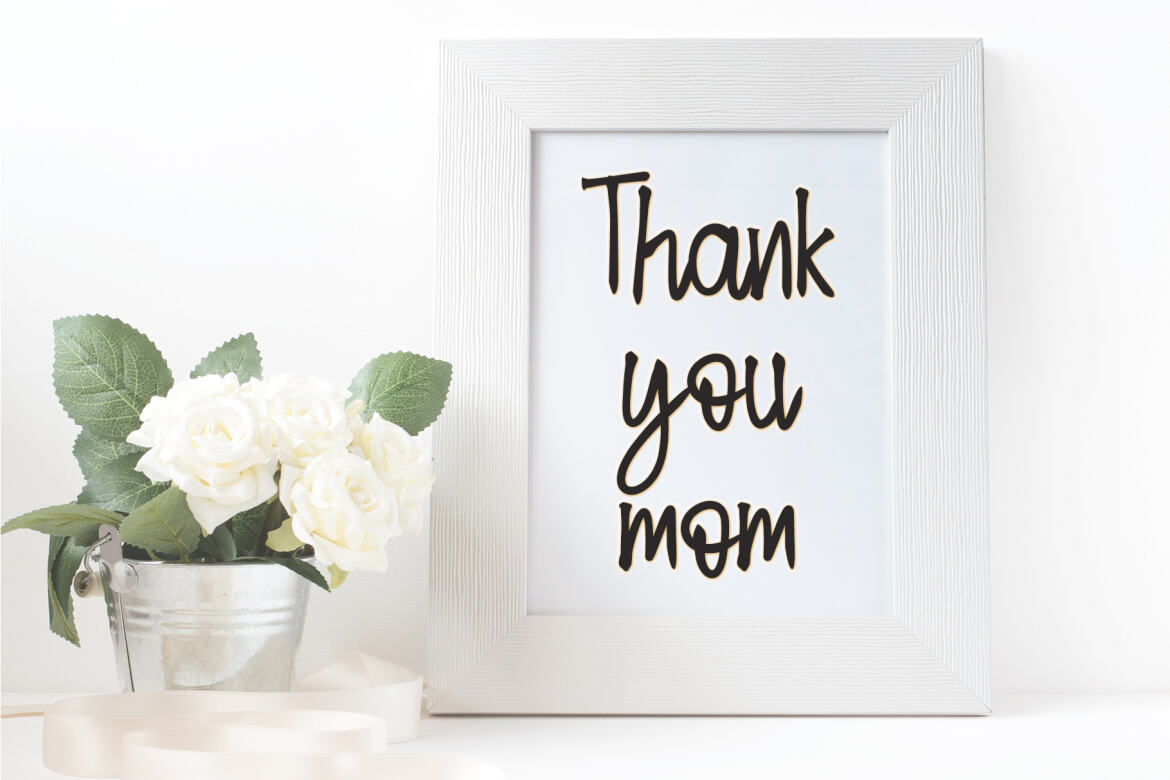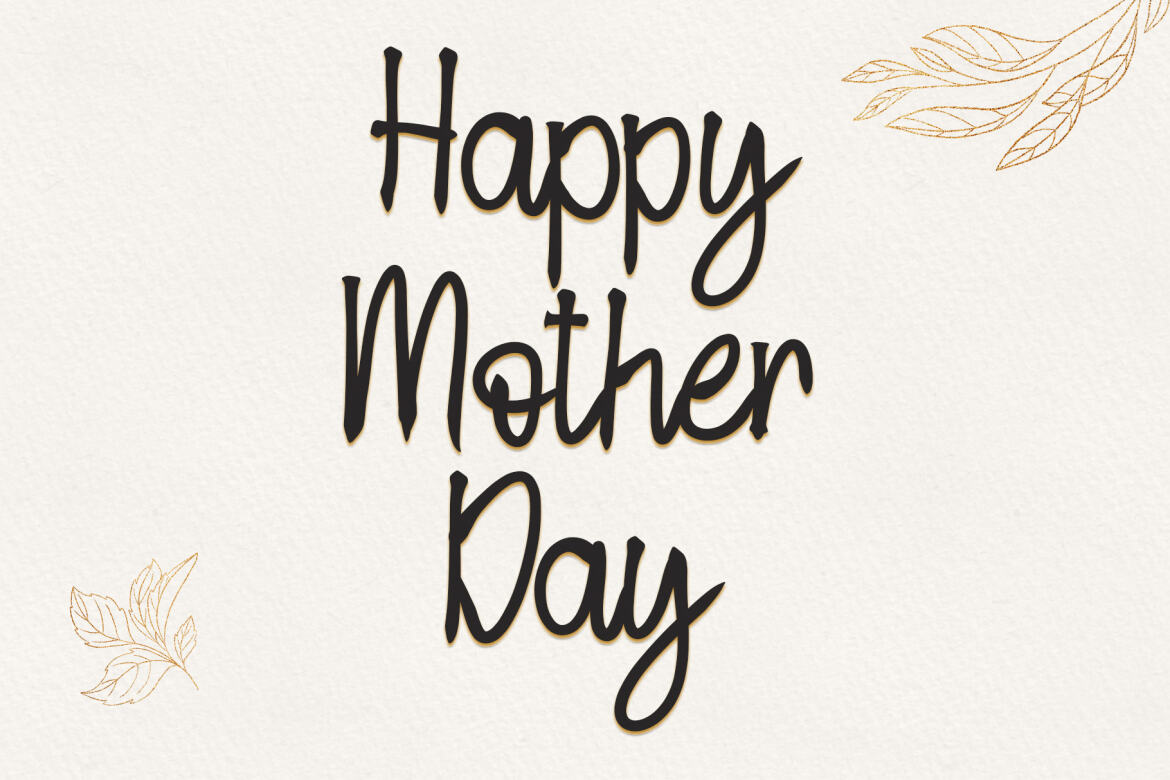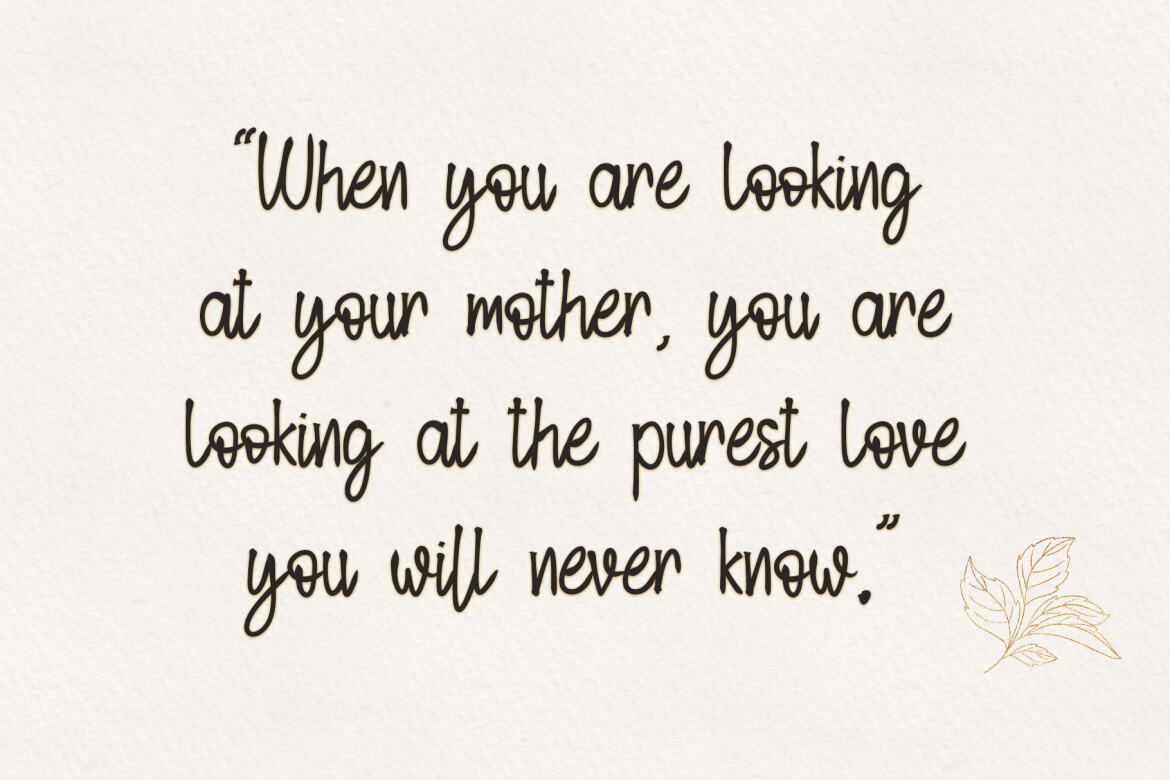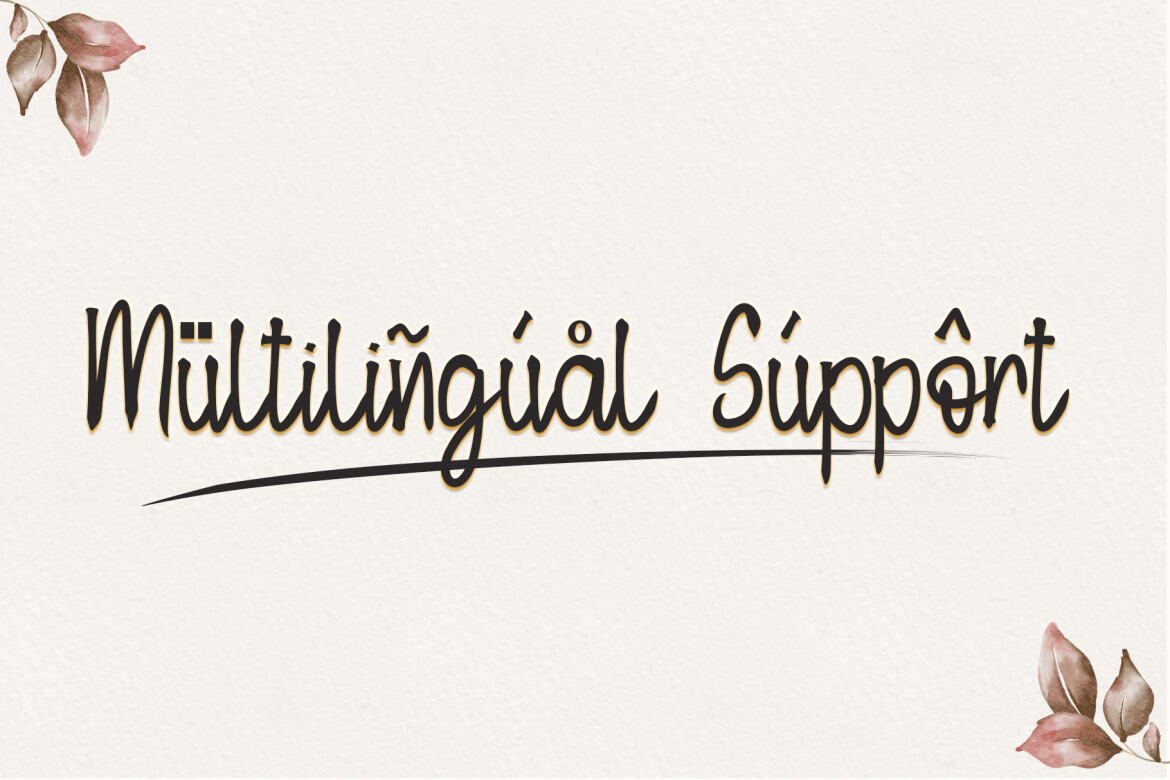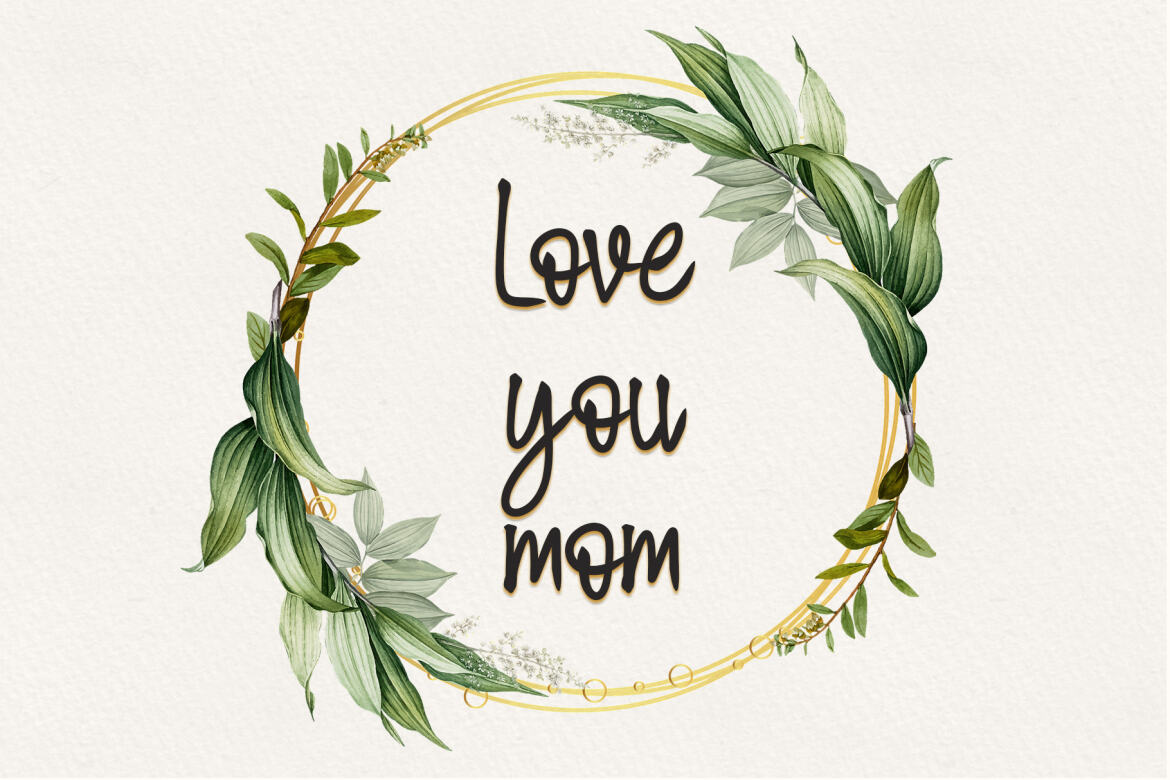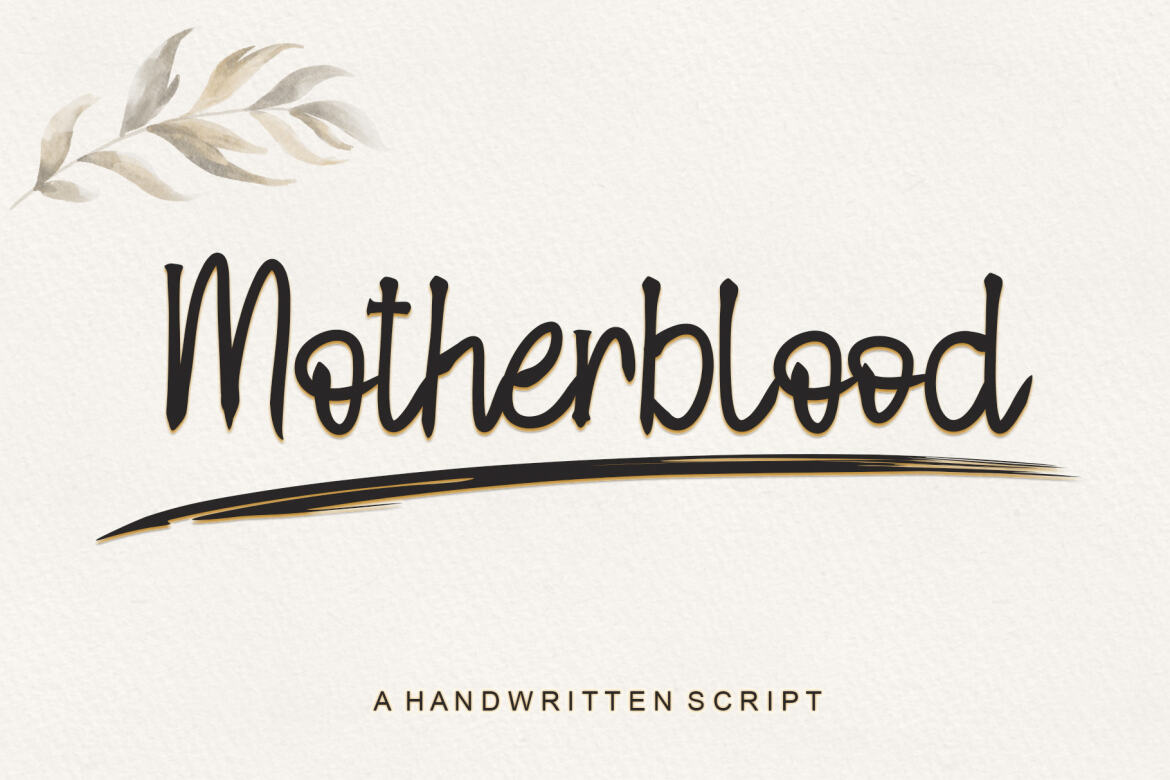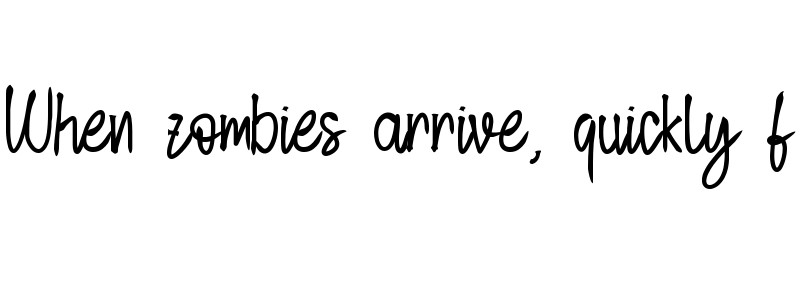
Motherblood - Free Font
Motherblood
Motherblood is a sweet and friendly handwritten font. Its natural and unique style makes it incredibly fitting to a large pool of designs. The only limit is your imagination!